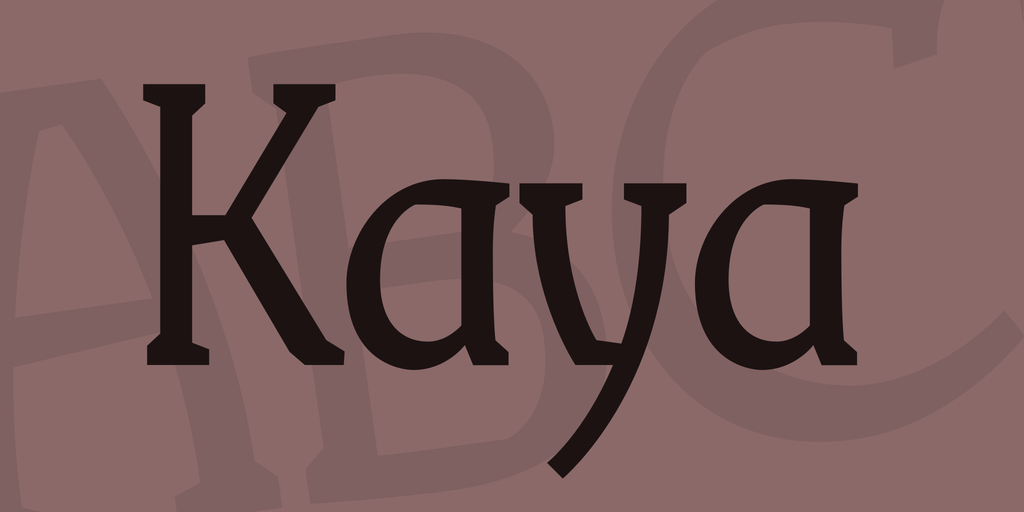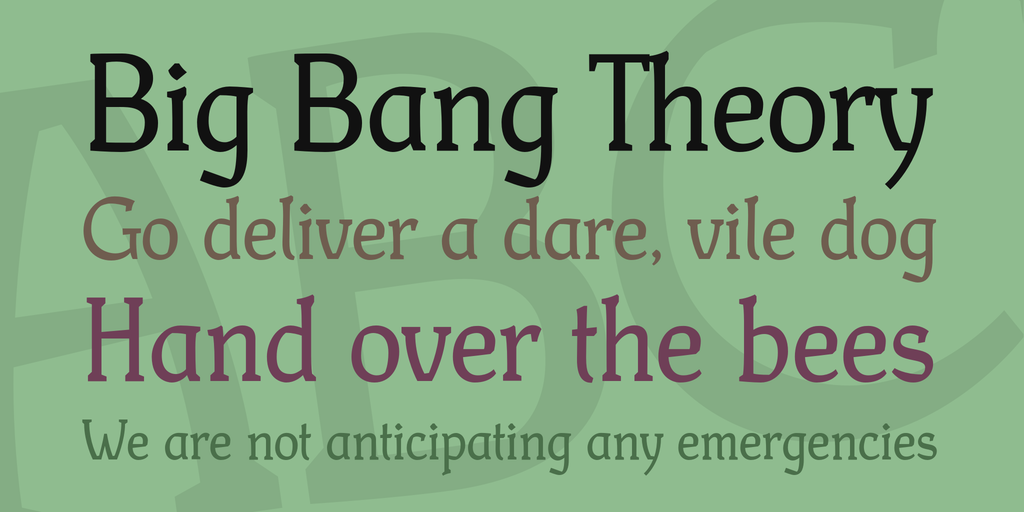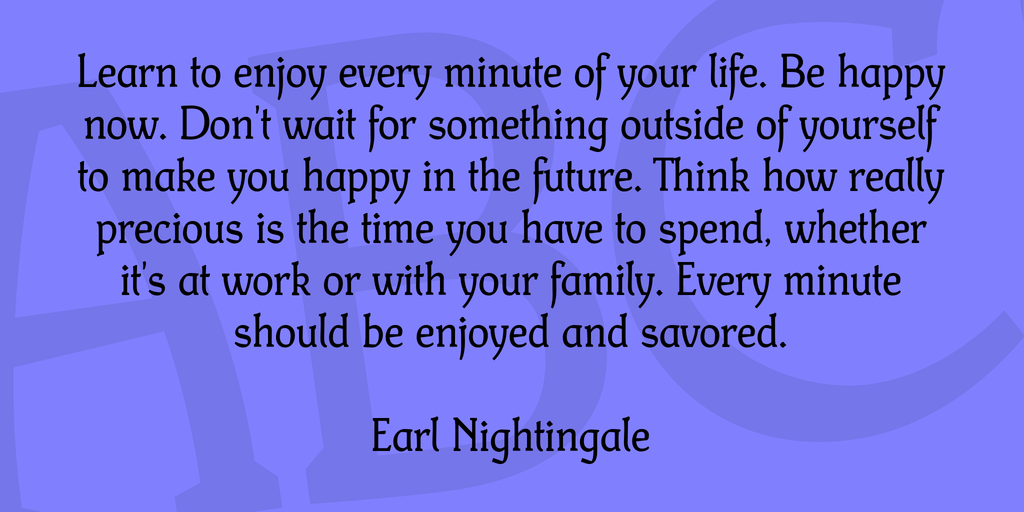
KAYA (turkish: rock) is a rugged typeface, with an edgy look and headstrong details, which I developed during my stay as an exchange student in Turkey. I did the first sketches while hitchhiking down the west coast and realized the typeface in the following term at the Mimar Sinan Güzel Sanatlar University in the class of Sadik Karamustafa.
I tried to get inspired by the experiences I made and not by the things I saw – in order to create something, that reflects how I felt at that time. I felt like in Turkey, design is often about functionality. I doesn’t have to be appealing. It has to work out. This creates a tough look and a technical style. Other aspects were the rather emotional people with a down-to-earth mentality. All this were issues that influenced my type design.
As a result, KAYA turned out to be a typeface with humanistic and static aspects. A mix of feather stroke and slab serif. KAYA is able to speak lots of languages, contains ligatures and alternative glyphs, which can be activated through a stylistic set. At the moment, KAYA contains 208 glyphs and is due to its simple programming rather a headline font.